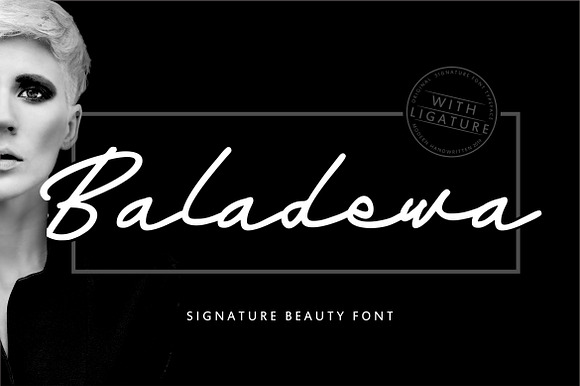
Baladewa Signature Beauty Font
Baladewa Signature Beauty Font by Vunira is a font selected for branding, posters, packaging, typography.
Baladewa Signature Beauty Font by Vunira fits naturally into Branding, posters, packaging, typography.